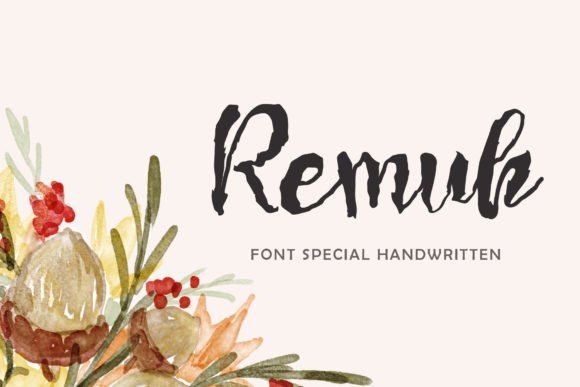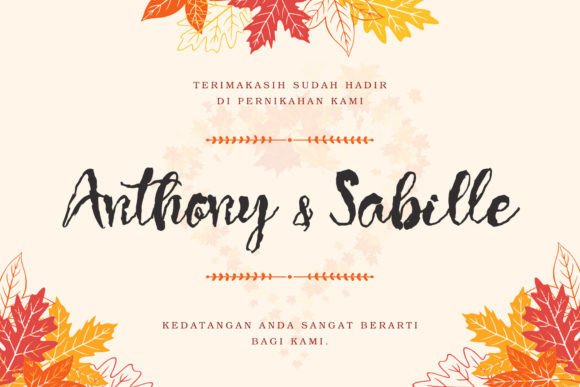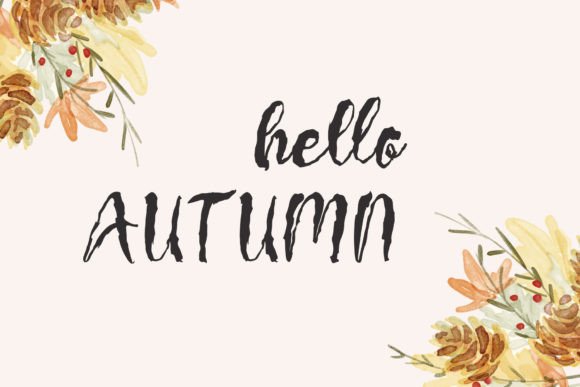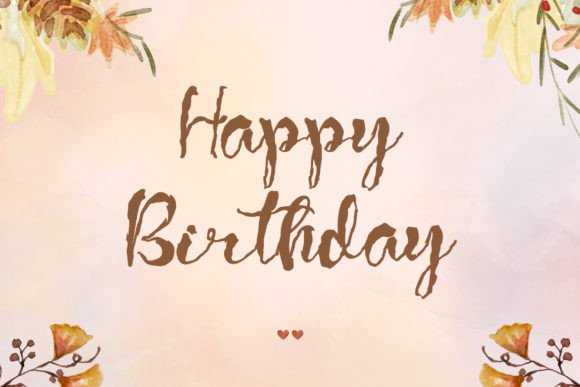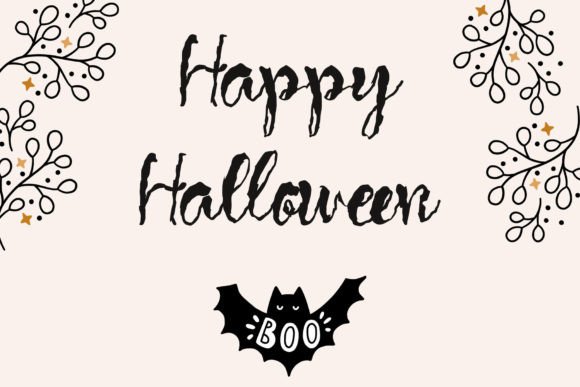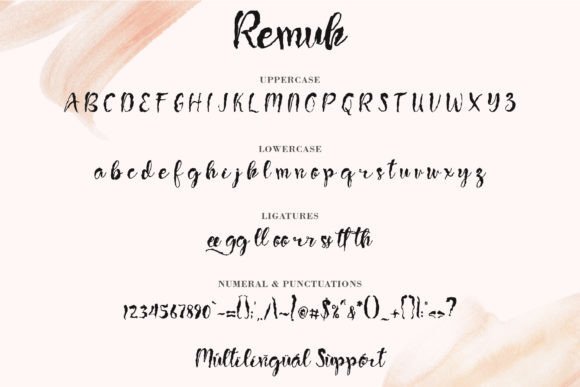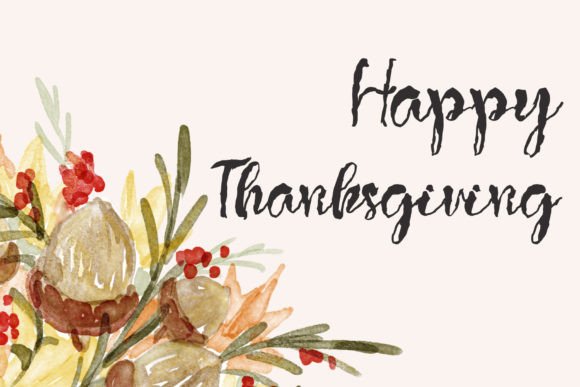
Remuk Font
About Remuk Font
“Remuk” is a cool and quirky handwritten font that boasts a rough look and a whimsical style. This font is tailor-made for those seeking to inject a playful and informal touch into their designs. Whether you’re working on digital graphics, posters, or any creative project, “Remuk” adds a distinctive character that sets it apart.
The cool and quirky demeanor of “Remuk” makes it stand out, allowing you to create designs that exude personality and charm. The handwritten and rough look adds a touch of authenticity, making it a great choice for projects where a casual and laid-back vibe is desired.
Imagine “Remuk” gracing a poster, where its quirky style catches the eye and adds an element of fun. Picture it in digital graphics, creating a playful and informal tone for your visual content. Envision this font used for social media posts, adding a touch of whimsy to your online presence.
The versatility of “Remuk” extends to its ability to bring a playful touch to various design scenarios. Its quirky style ensures that it can be seamlessly integrated into different creative endeavors, making it a valuable asset for designers and creators who want to break away from the conventional.
Whether you’re a graphic designer looking for a font that exudes coolness and quirkiness or an individual seeking a playful typeface for a project, “Remuk” invites you to explore its possibilities. Let it be the key element that adds a dash of whimsy and character to your designs.